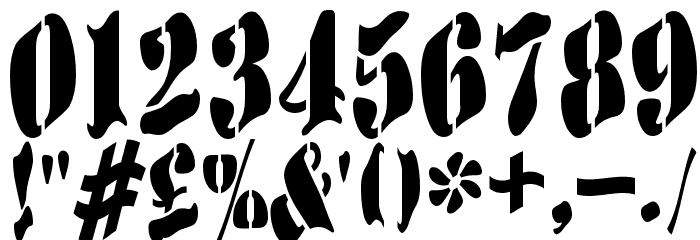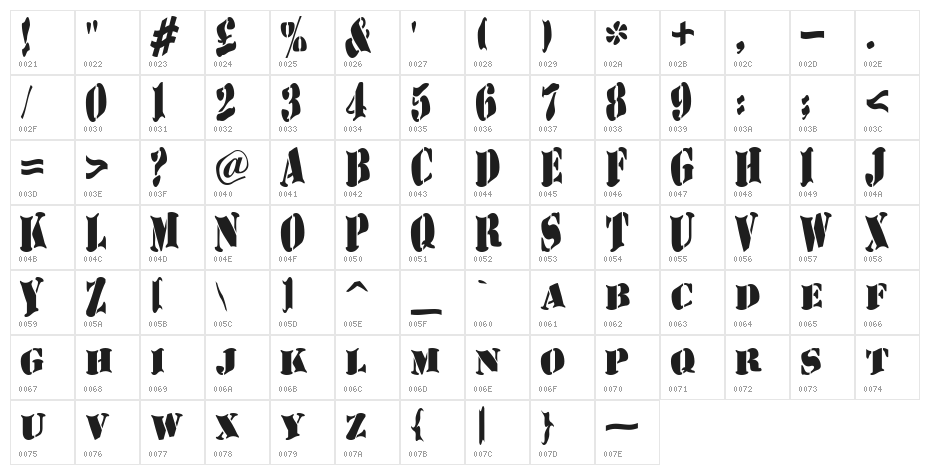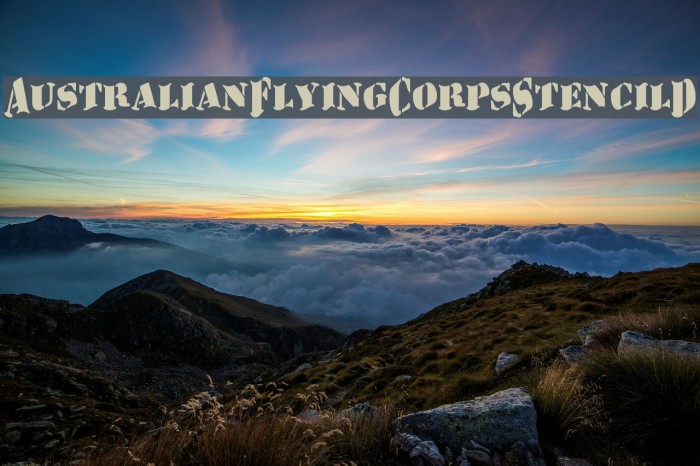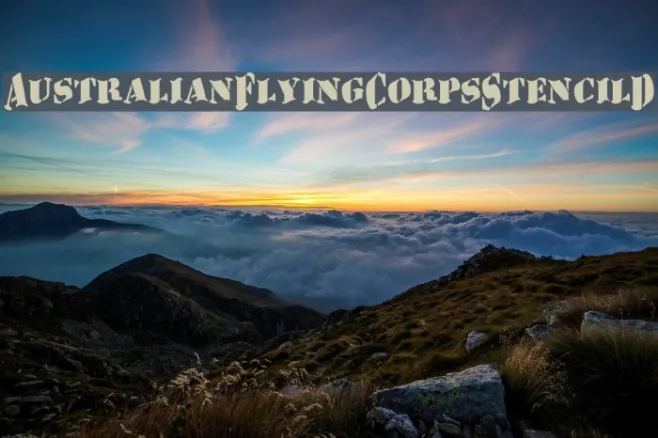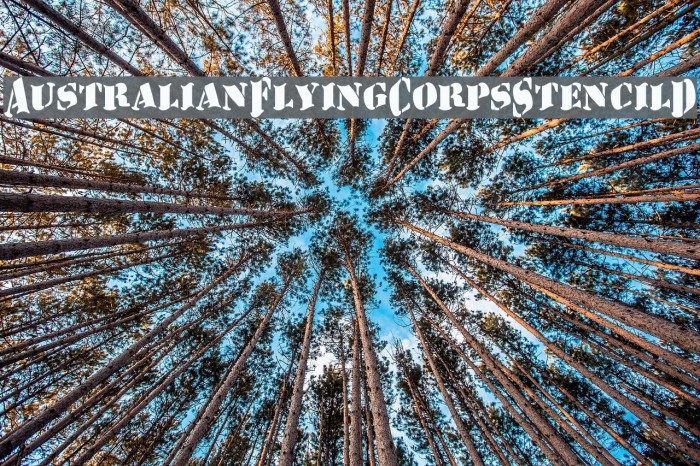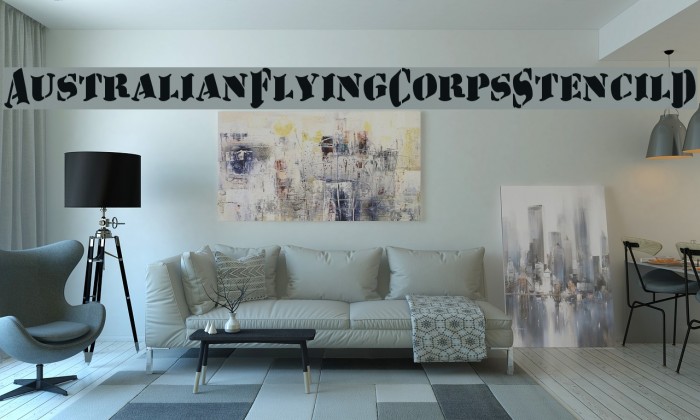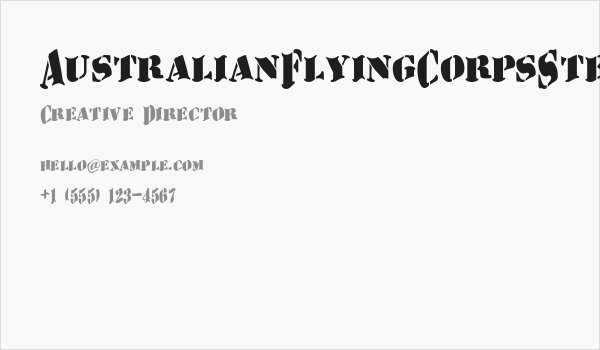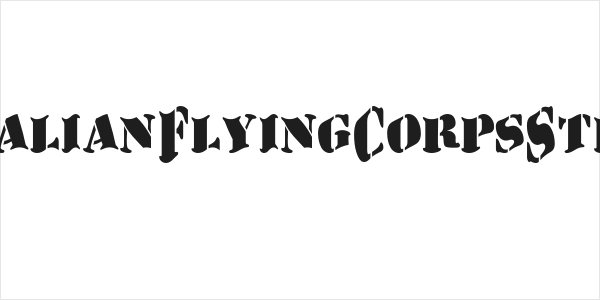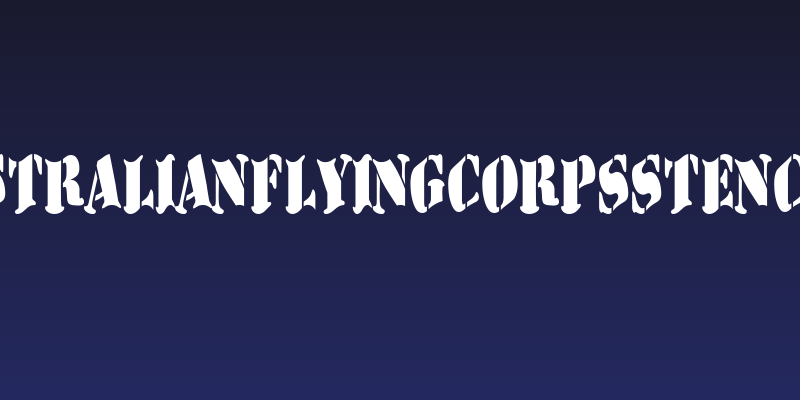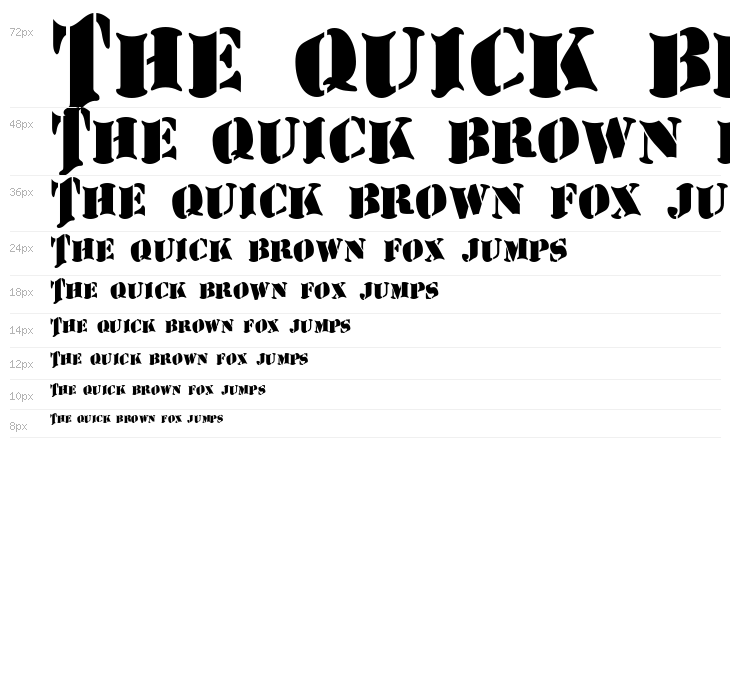
AustralianFlyingCorpsStencilD Font
AustralianFlyingCorpsStencilD Description
This font features a bold, stencil-style design with sharp, angular cuts that create a rugged and industrial appearance. The characters are well-defined with a strong presence, making it ideal for impactful designs. The uppercase letters are particularly striking, with a uniform height and width that maintain consistency across the alphabet. The numbers and special characters follow the same bold and structured style, ensuring a cohesive look throughout. This font's stencil effect is reminiscent of military or industrial applications, adding a sense of authority and strength to any project.
| Overall Style | Industrial, Military |
| Use Case | Headlines, Logos, Signage |
| Proposed Projects | Ideal for military-themed designs, industrial branding, posters, and signage. |